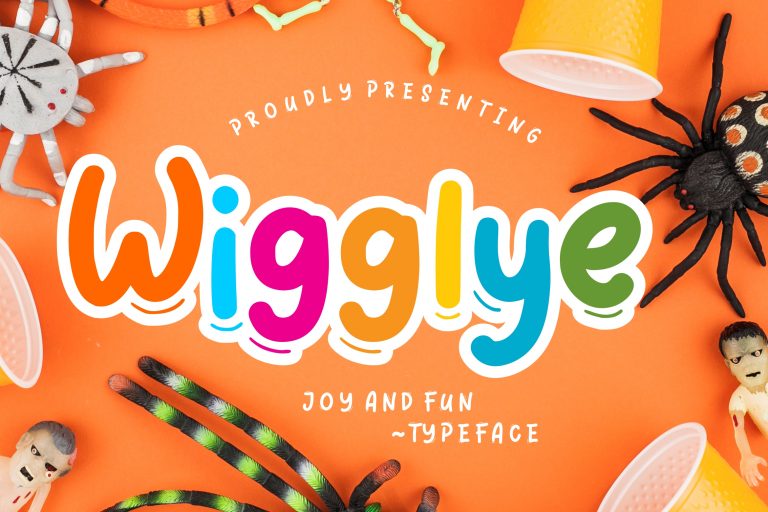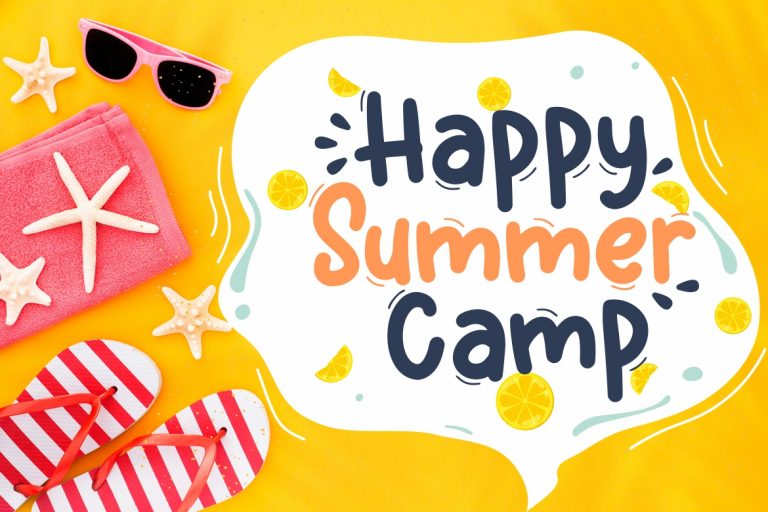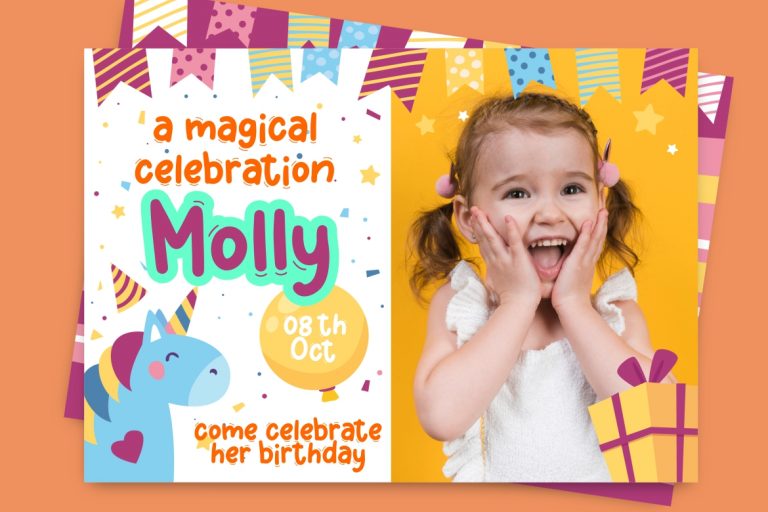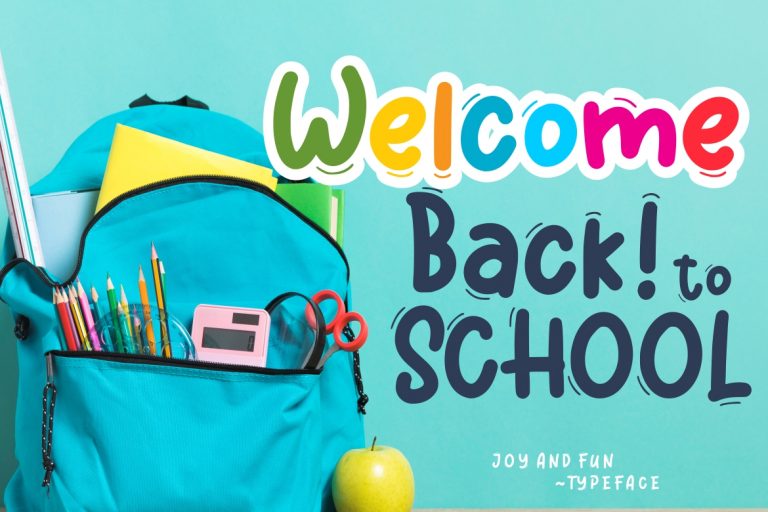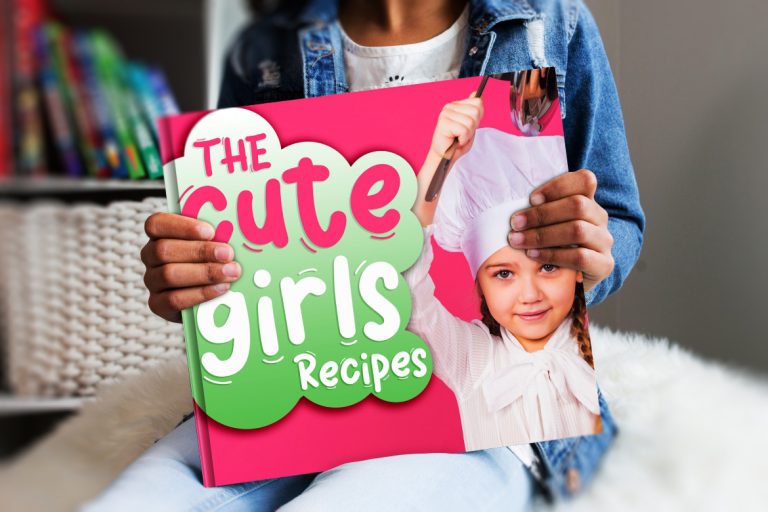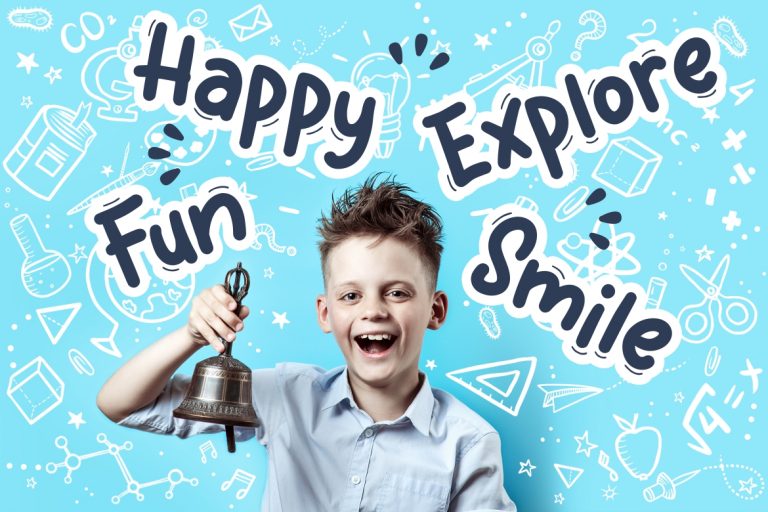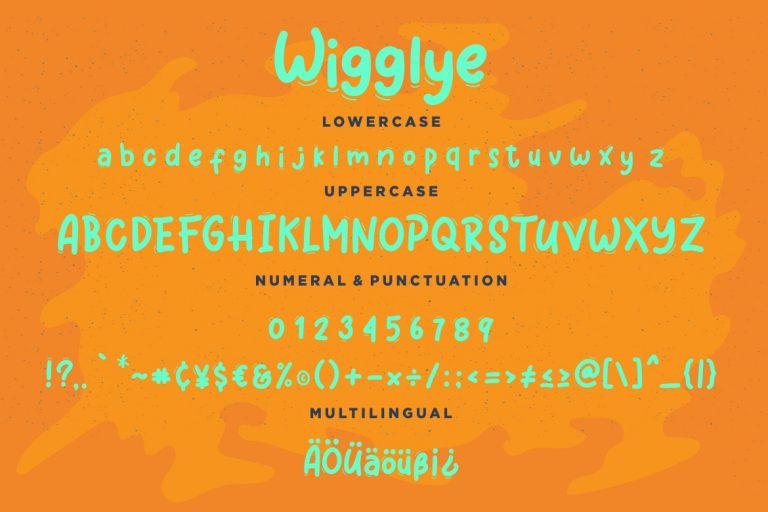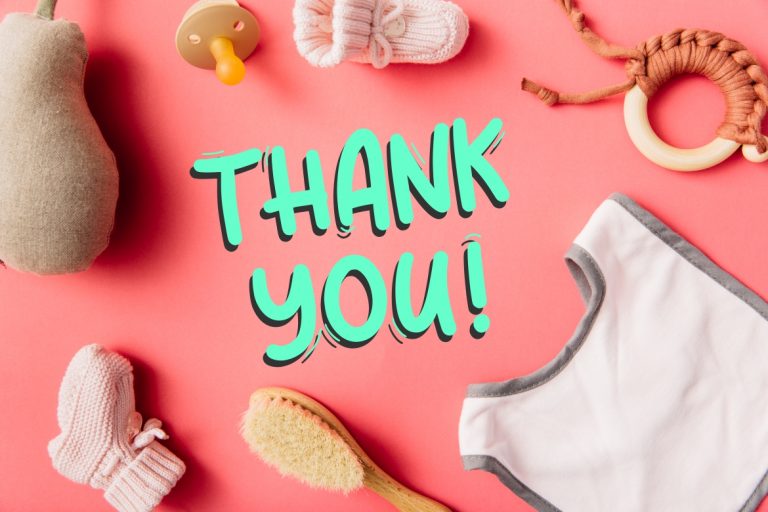
Wigglye is natural joy and fun typeface for happy event that needs hand drawn taste.
Wigglye is perfect for branding projects, logo, wedding designs, social media posts, advertisements, product packaging, product designs, label, photography, watermark, invitation, stationery and any projects that need handwriting taste.
• Fonts include multilingual support for; ä ö ü Ä Ö Ü ß ¿ ¡
Wigglye Joy & Fun Typeface